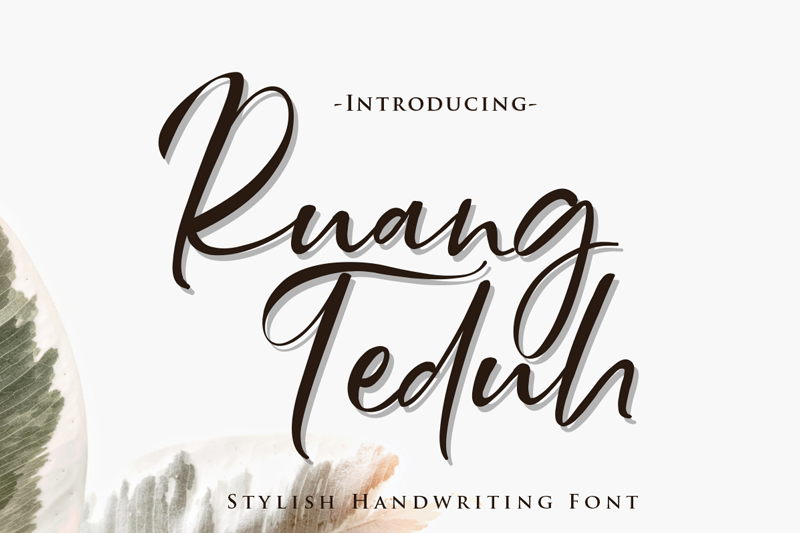
Font name: | Ruang Teduh |
Author: | Gilar Studio |
Note by Gilar Studio | |
Say hello to Ruang Teduh a Handwriting Font - Ruang Teduh is special in that one word can be written in a million different ways It comes with 11 sets of alternate lowercase letters and make your words look exactly how you need them to look Ruang Teduh is a unique handwritten font. Its unique flow and easy signature style makes it perfect to use for invitation, stationery, wedding designs, social media posts, advertisements, product packaging, product designs, label, photography, watermark, special events,logos, signatures, quotes, badges, labels, packaging design, blog headlines or simply use it in your next design project. The alternative characters were divided into several Open Type features such as comes with upper and lowercase Basic Characters, Numbers, Punctuation, Stylistic Sets, Stylistic Alternates,28 ligatures with 496 glyphs.. The Open Type features can be accessed by using Open Type savvy programs such as Adobe Illustrator, Adobe InDesign, Adobe Photoshop Corel Draw X version, And Microsoft Word. And this Font has given . so that all the alternate characters can easily be accessed in full by a craftsman or designer. You will get: Ruang Teduh OTF Ruang Teduh TTF Ruang Teduh WOFF For Donation : Gilar.ever@gmail.com see full version on : https://www.creativefabrica.com/product/ruang-teduh/ref/236330/ That's it! If you have any questions at all , feel free to pop me a private message , I'm always more than happy to help you along :) Happy creating! |